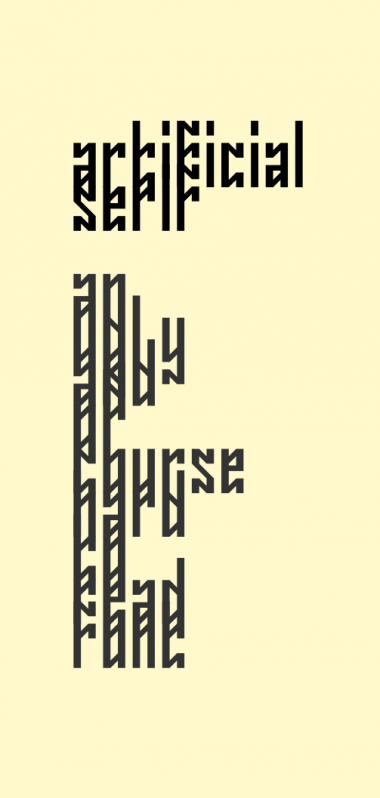
Artificial Serif
Isaac González (1saac)
Cloned from
Artificial Stencil
Isaac González (1saac)
Artificial Script
Isaac González (1saac)
(13)Artificial Sans
Evie Atarax (j4s13)
Ugly clone of Artificial Stencil.